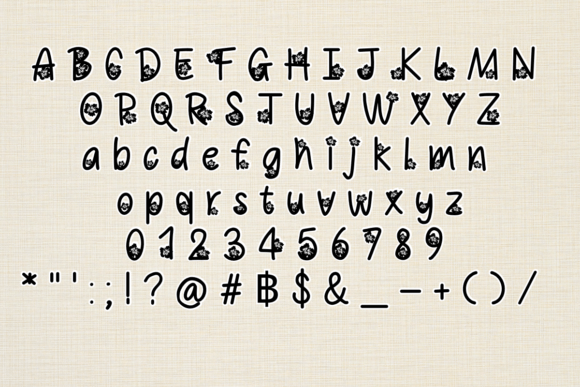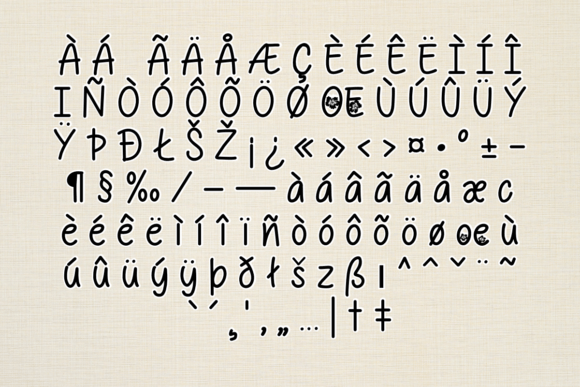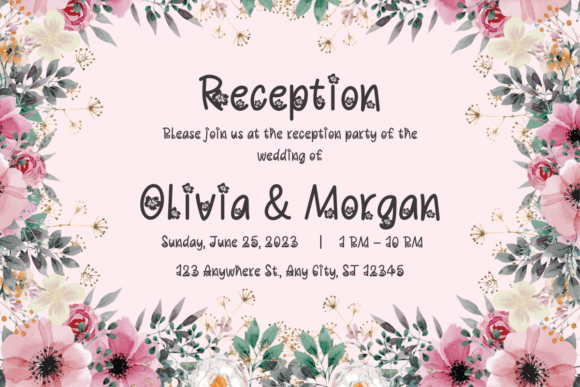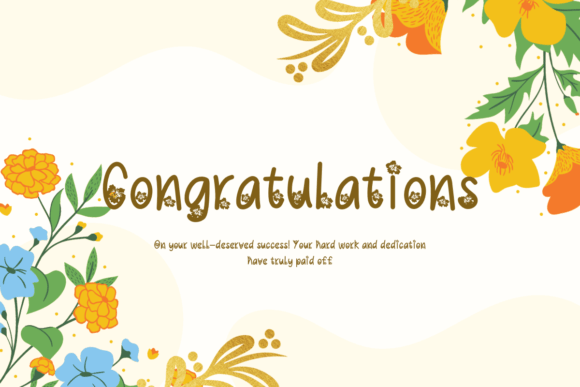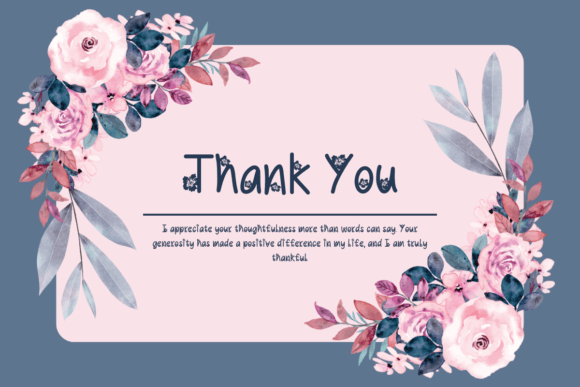
Introduction to Flower Bloom Font
Flower Bloom is a decorative font that features pretty flowers near each letter.
This gives the text a charming, floral look, perfect for adding a touch of nature and beauty to your designs .
Key Features of Flower Bloom Font
Why Choose Flower Bloom Font?